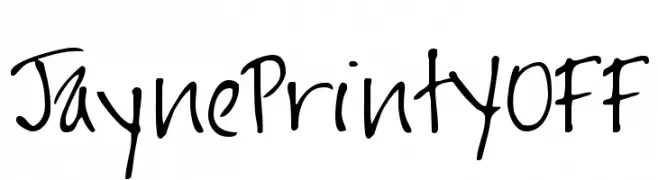
A playful, handwritten font with bold strokes and quirky character spacing.
A playful and casual handwritten font with bold, consistent strokes.
A playful, handwritten font with a casual and informal style.
A playful, casual handwritten font with dynamic strokes and a lively style.